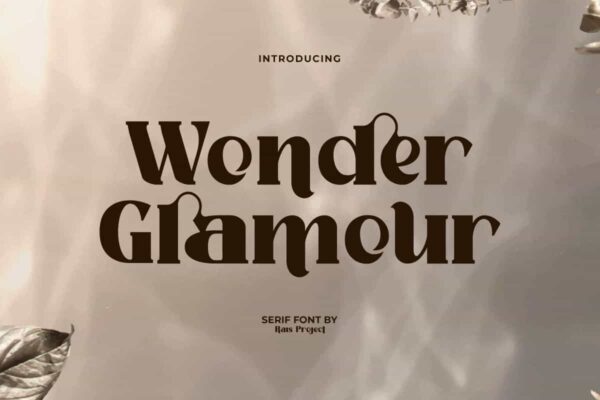
Wonder Glamour Font
Wonder Glamour Font is an adorable serif font with a fancy characters, by RaisProject. This font is created to make your designs looks awesome!
Wonder Glamour Font is a beautiful fancy serif display font. This font has thick characters with a combination of lines that keep it elegant. It will be good for any designs, such as brand image, cover, custom design, flyer, invitation, label, marketing material, poster, product packaging, quotes, signage, stationery, website page, and more!
Wonder Glamour Font includes a full set of Uppercase and Lowercase Letters, Numerals, large range of Punctuation, and Ligature characters. This stunning font will be suitable for various industries, such as accessories, advertising, beauty product, event or festival, fashion brand, marketing, printing, publishing, real estate, spa and salon, etc.